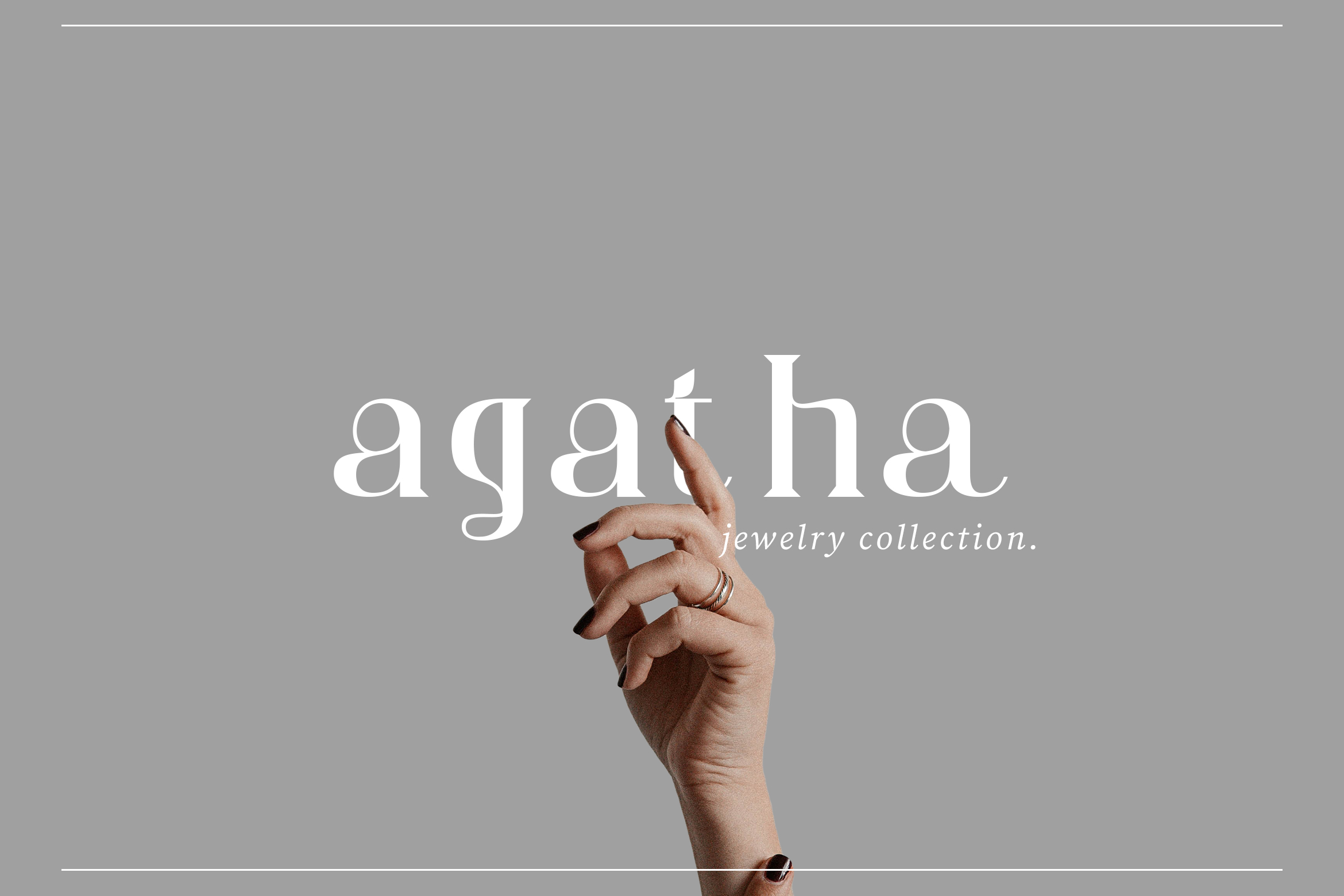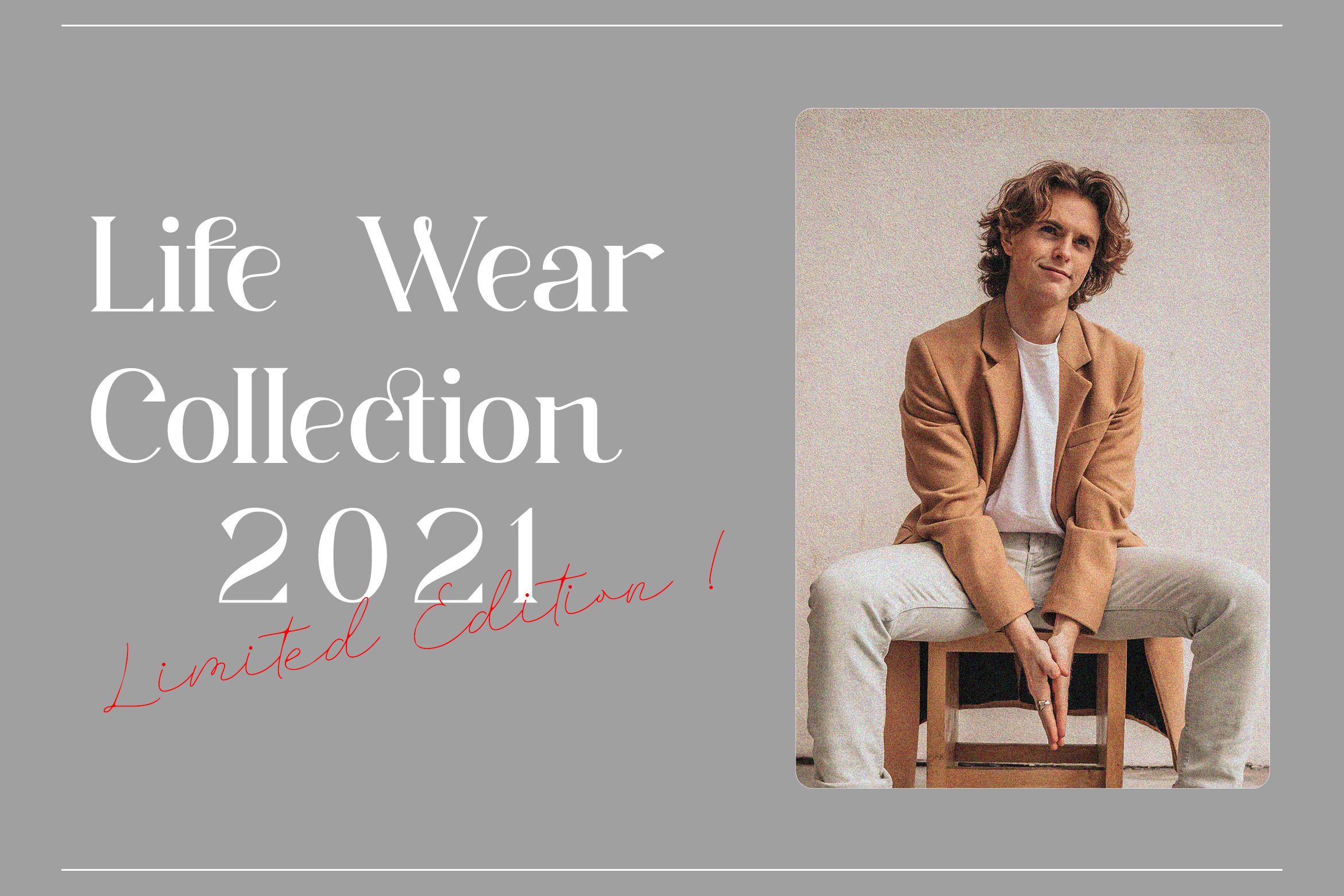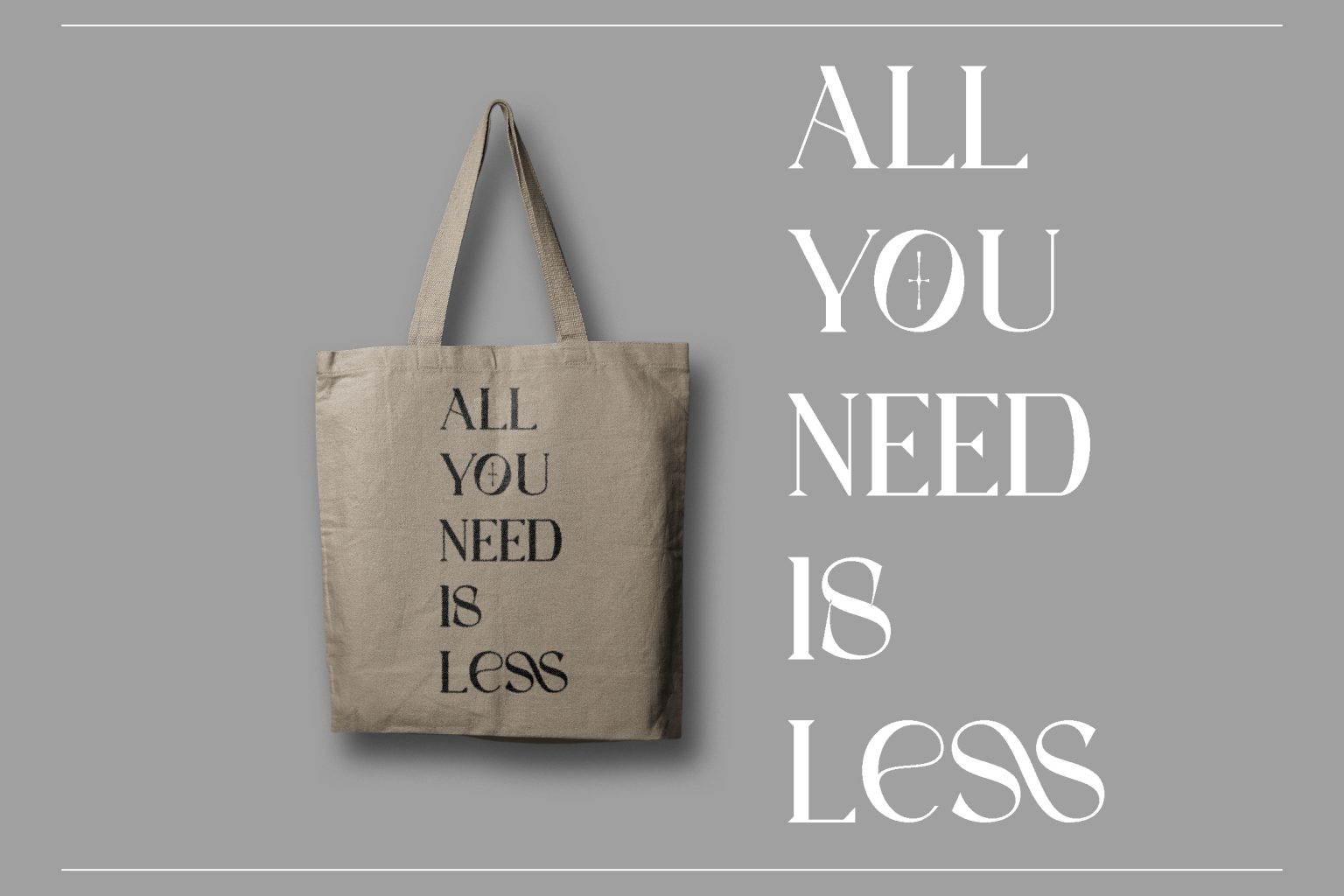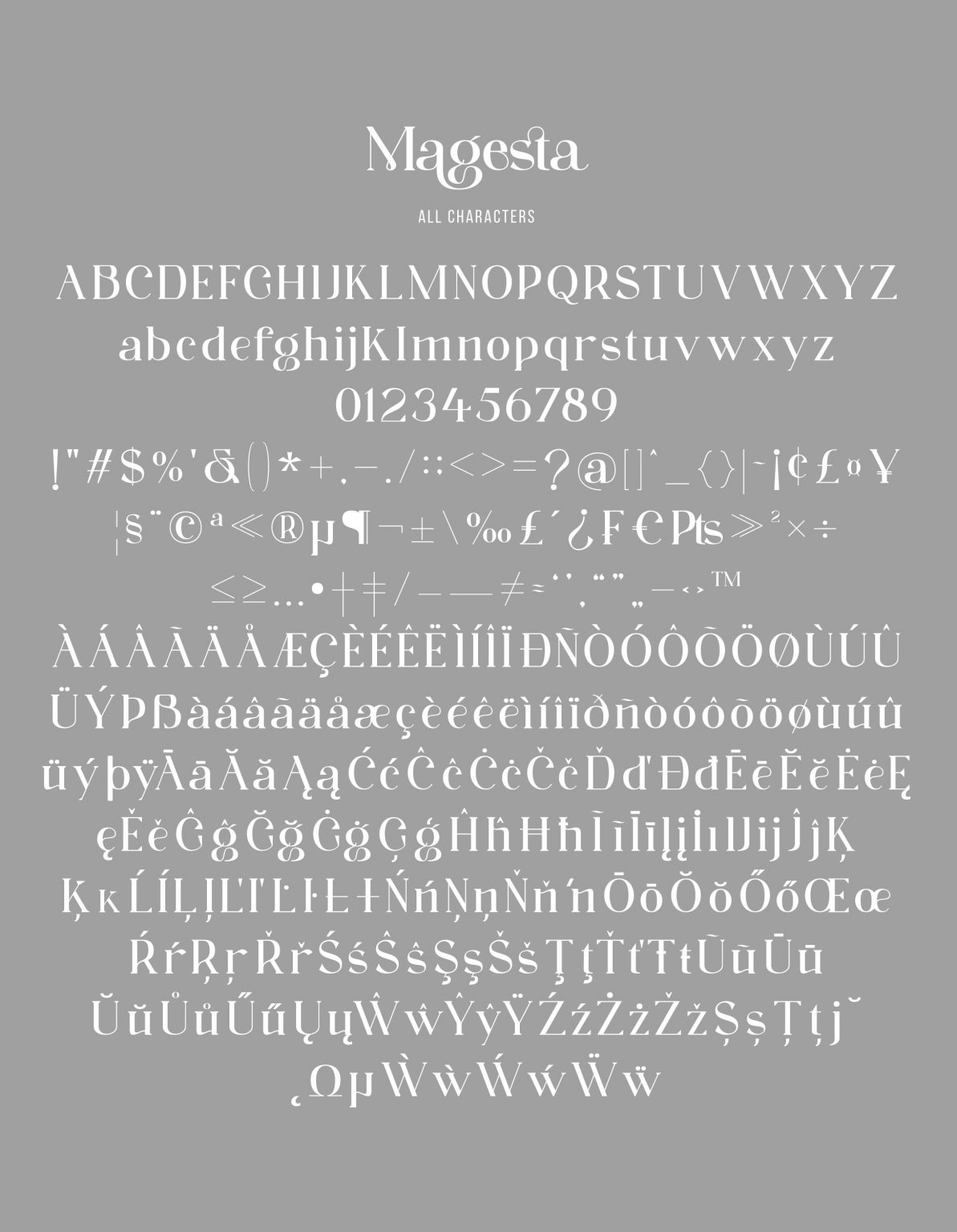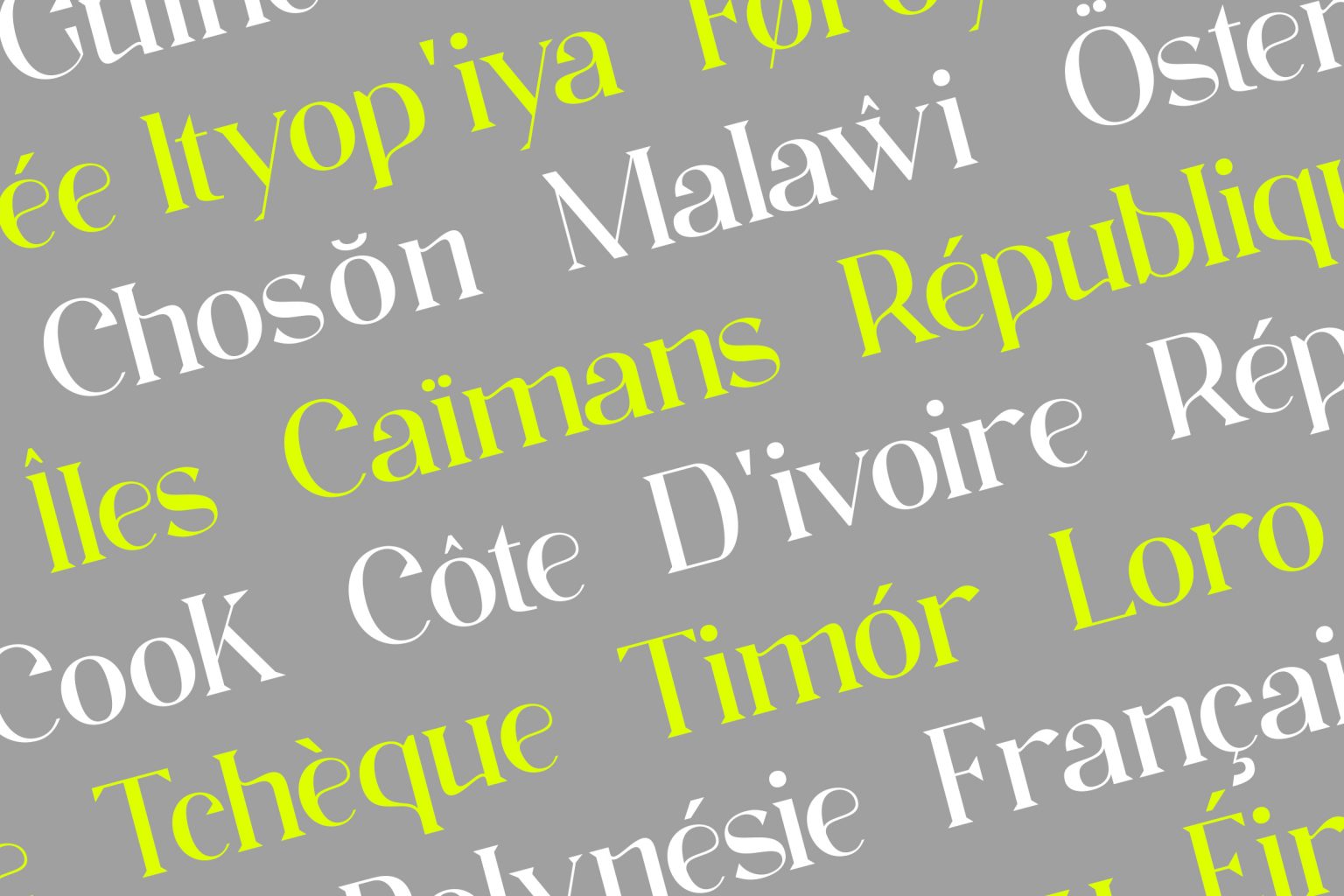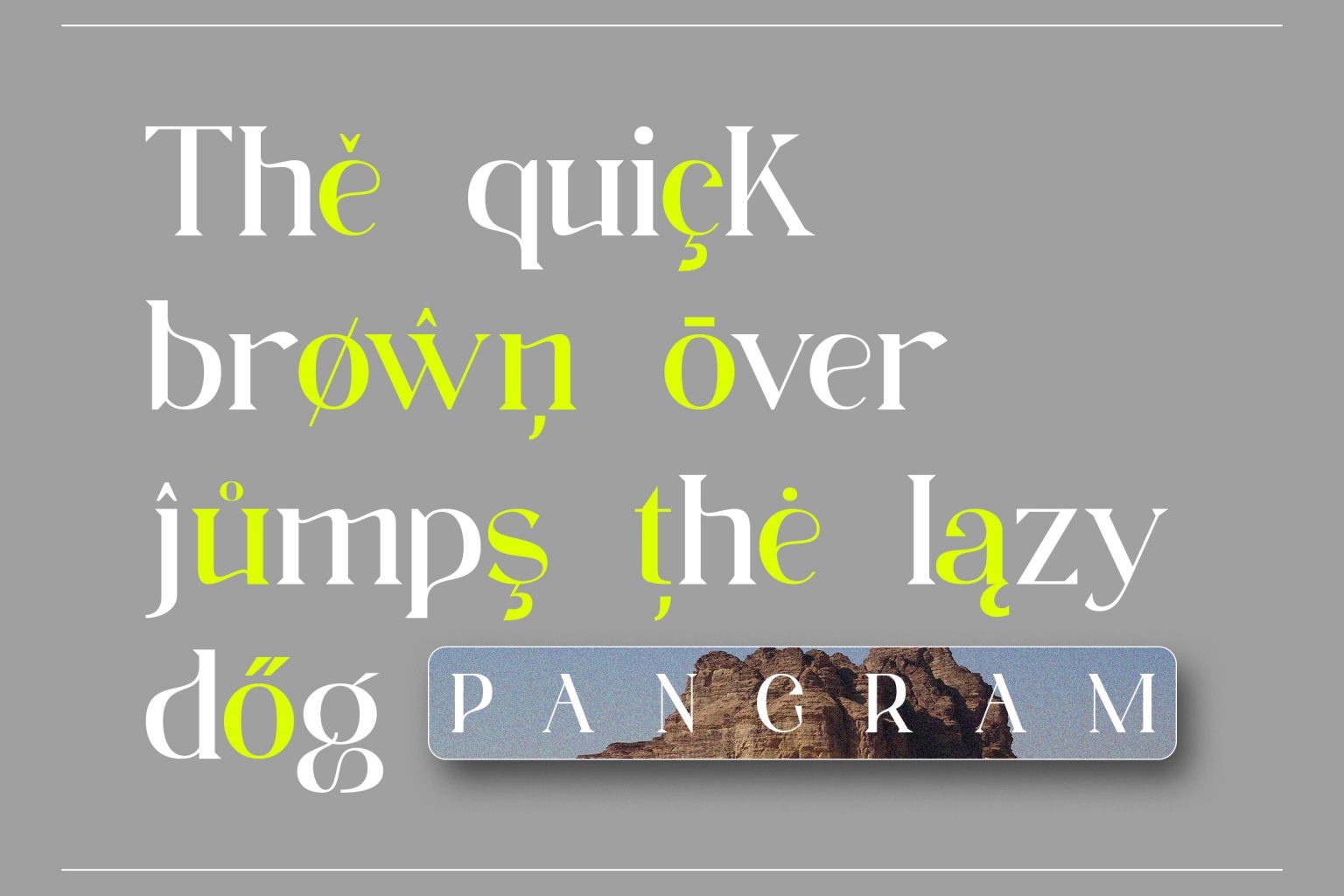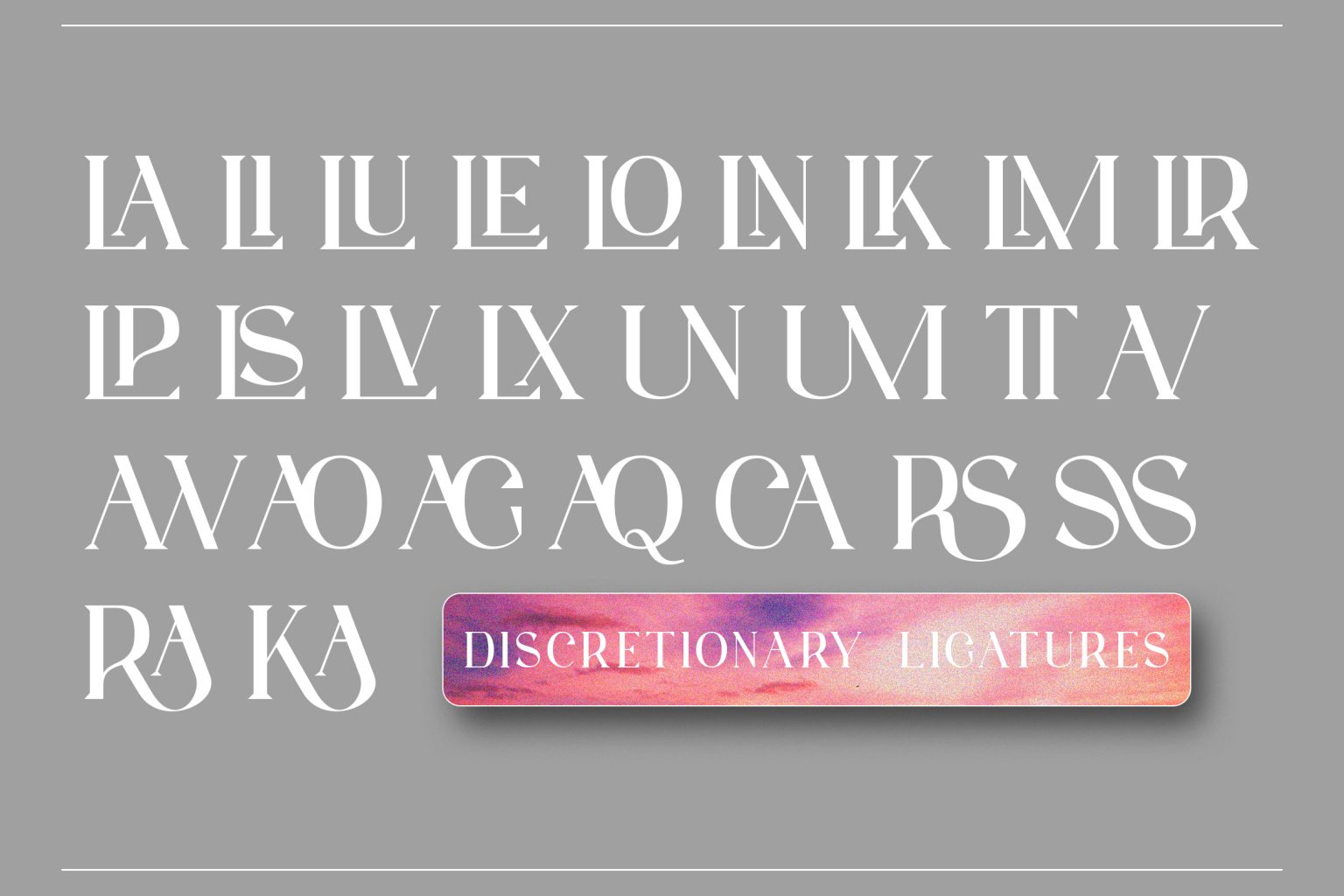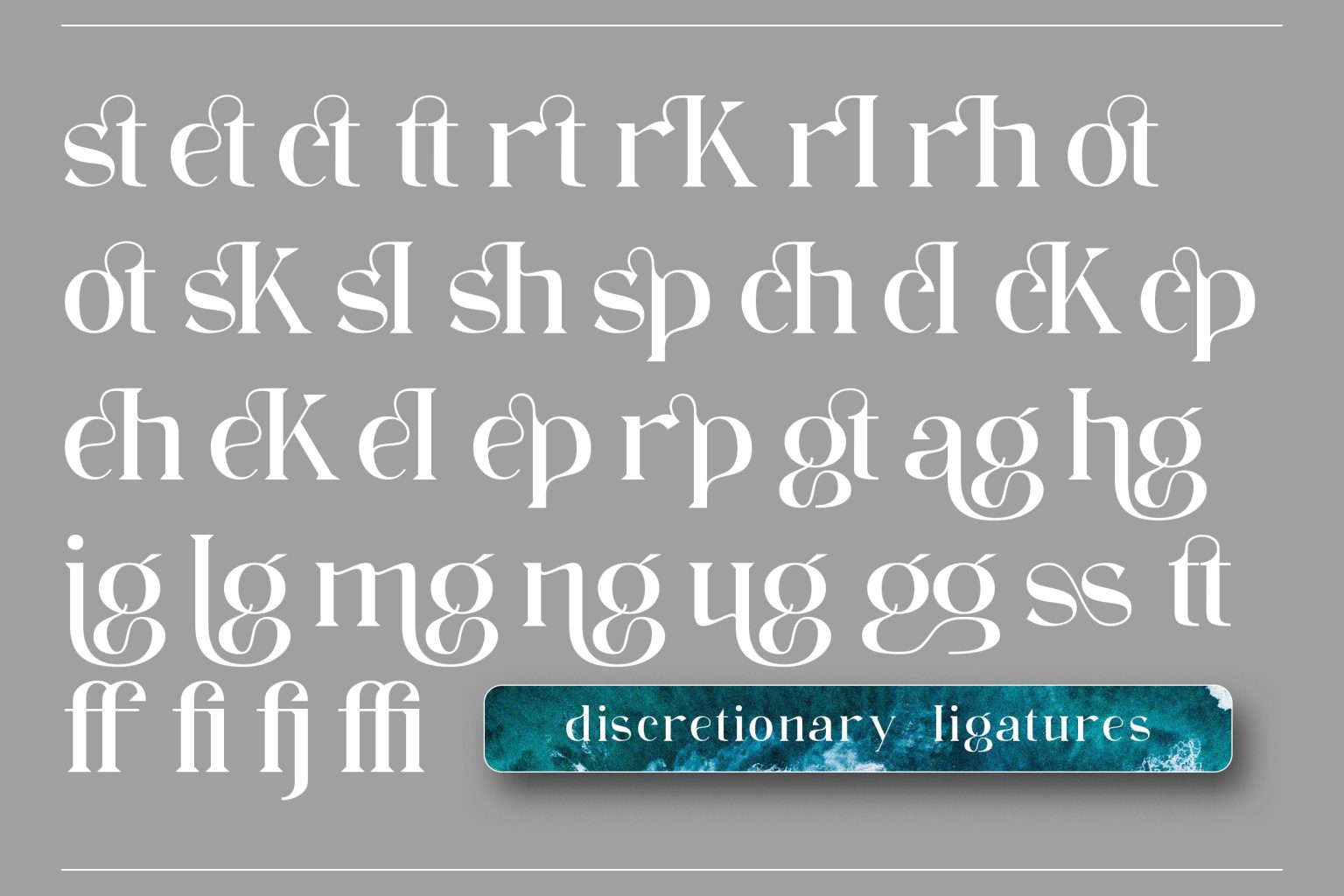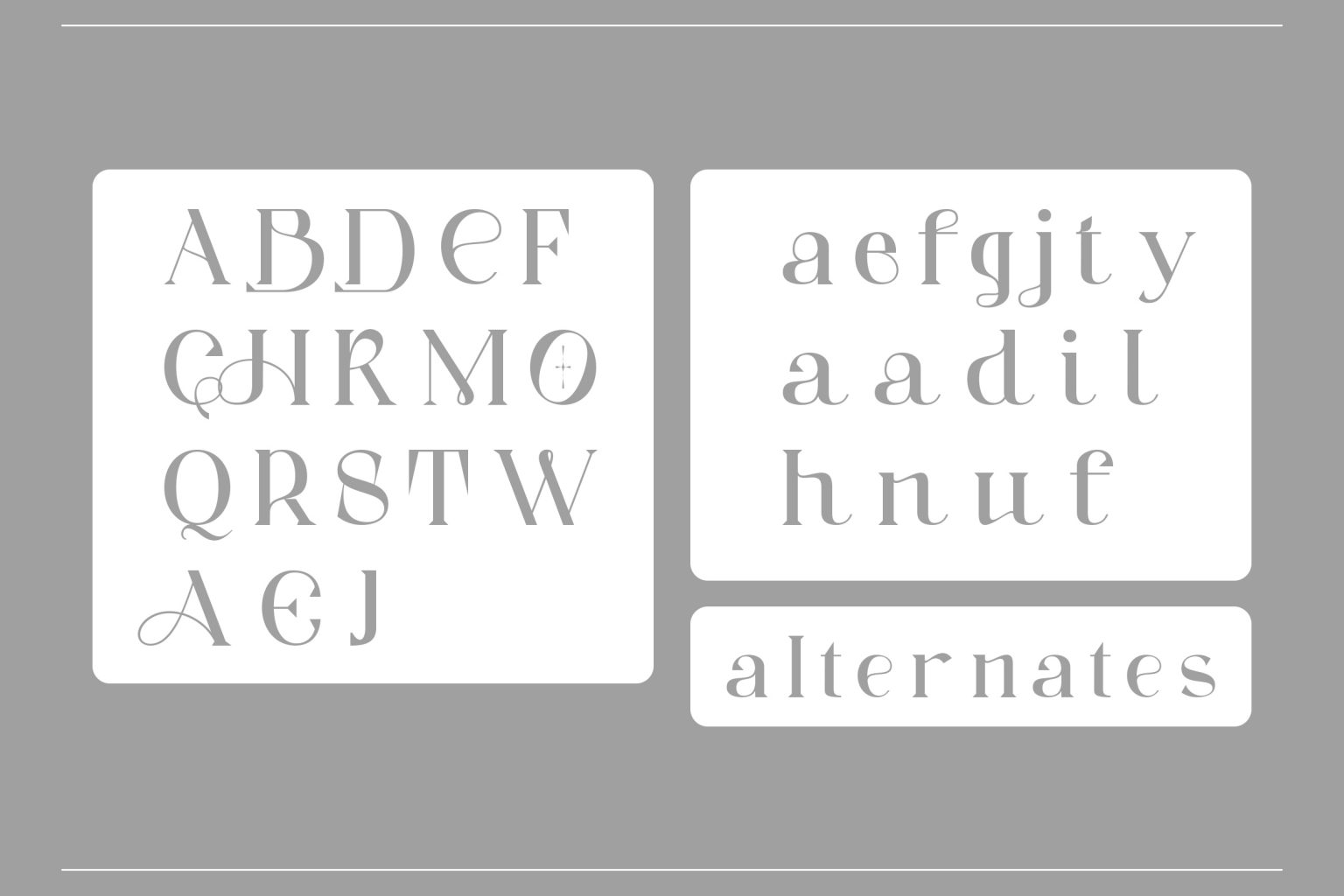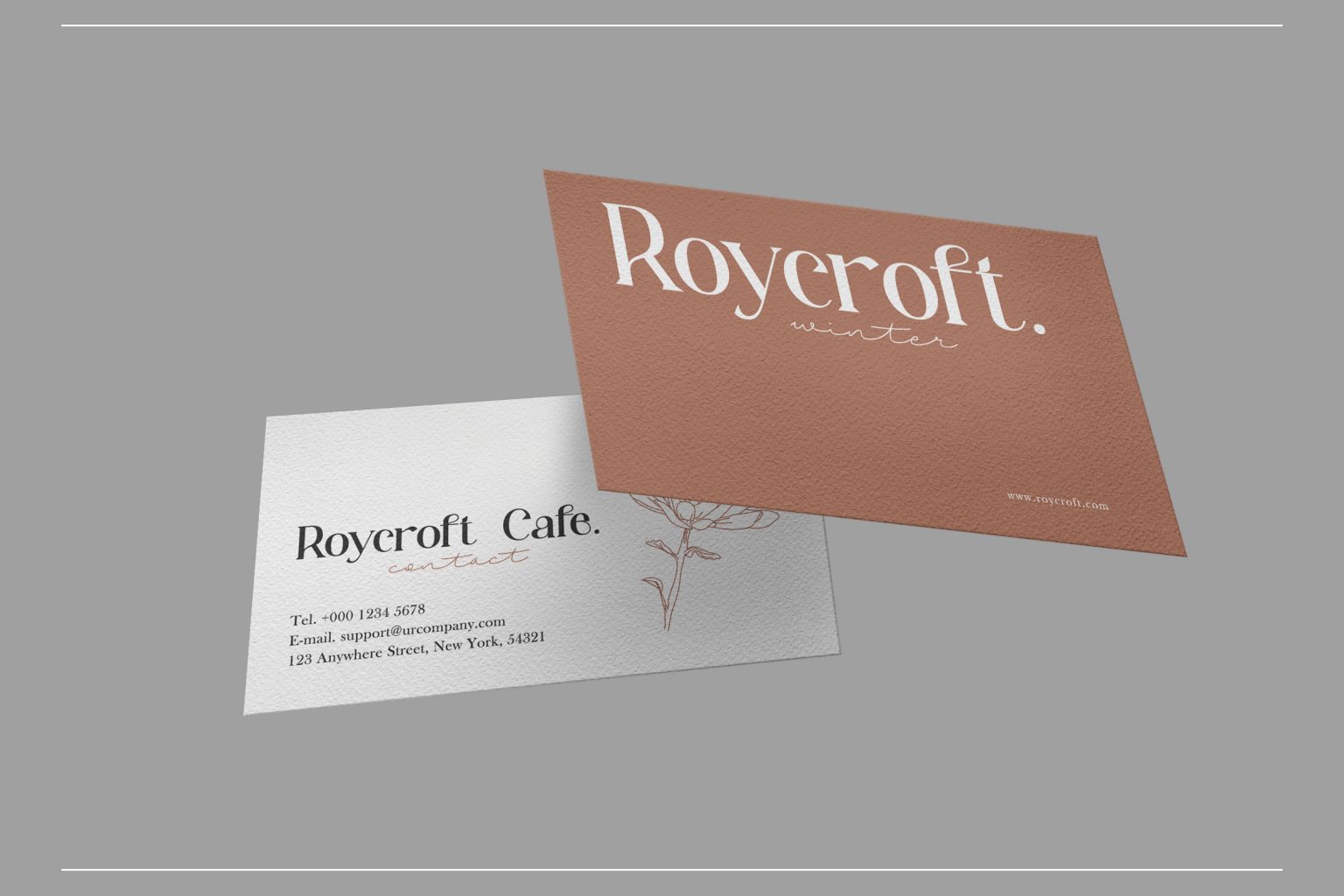
Introducing Magesta typeface is serif font this is inspired by chopper font relesed in August 9th 2021. magesta typeface support multilingual languages, unique uppercase and lowercase ligatures. Create unique & elegant logotype, use it as an elegant for your next project headlines, logotype designs, posters or t-shirts, business cards.
• Ton of glyphs
• Ligature & Alternate
• Fonts include multilingual support for; Afrikaans, Albanian, Czech, Danish, Dutch, English, Estonian, Finnish, French, German, Hungarian, Italian, Latvian, Lithuanian, Norwegian, Polish, Portuguese, Slovak, Slovenian, Spanish, Swedish.
Magesta